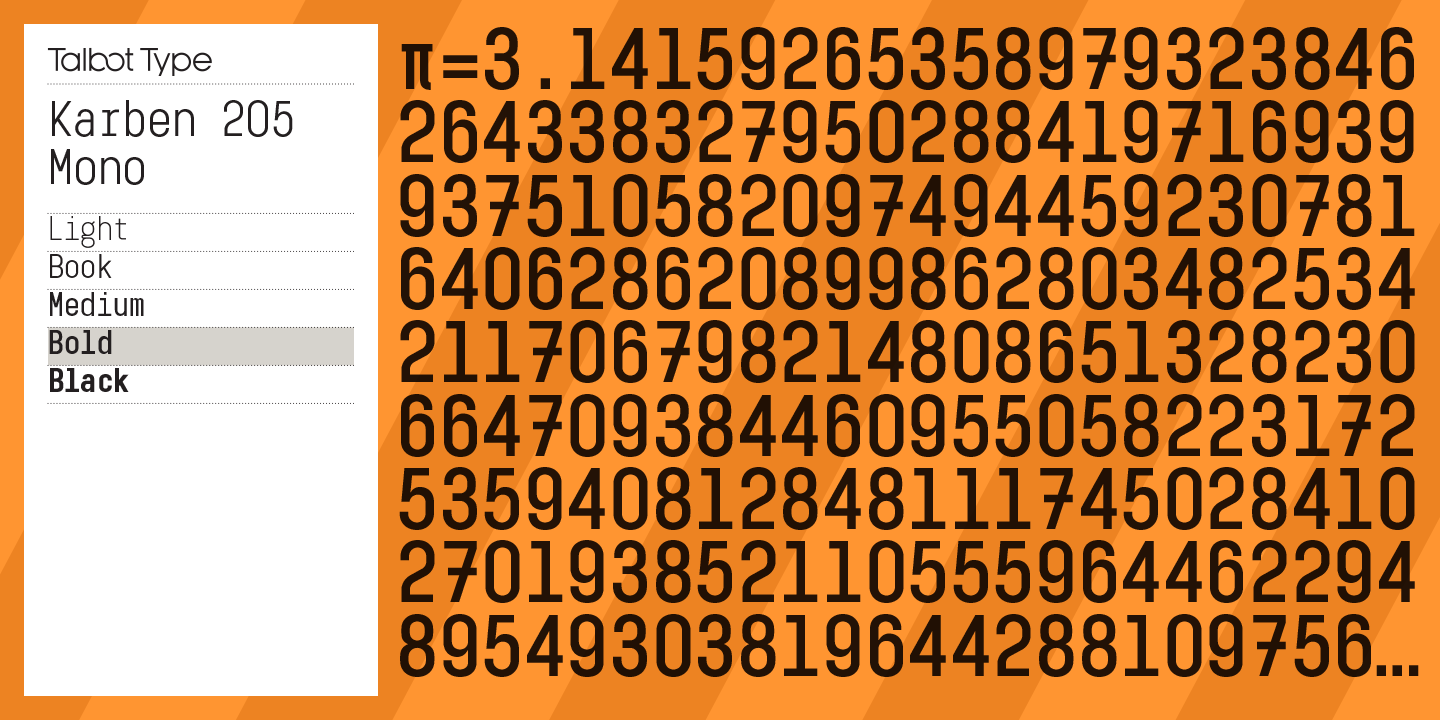
Karben 205 Mono Font is perfect for software development interfaces, coding documentation, technical manuals, terminal applications, programming tutorials, cybersecurity branding, digital forensics reports, computer science textbooks, hacker-themed designs, and retro computing merchandise.
What makes Karben 205 Mono Font so exciting is its precision-engineered monospace design that perfectly balances technical functionality with modern aesthetic appeal. This sophisticated monospace typeface features uniform character spacing, optimized readability for code, and clean geometric forms that create an immediate sense of technical expertise and digital professionalism, making it the ultimate choice for developers, programmers, and tech brands that demand both performance and style.
The Karben 205 Mono Font family includes light, regular, medium, and bold weights, along with extended character sets, programming symbols, mathematical operators, and technical notation support. Each style maintains the font's signature monospace precision while providing developers with comprehensive options for creating clear, professional code documentation and technical communications.
Whether you're designing for software companies or educational technology platforms, Karben 205 Mono Font Free Download delivers the technical precision needed for optimal code readability and professional presentation. The font's meticulously engineered letterforms ensure perfect character alignment and exceptional legibility in both IDE environments and printed technical documentation.
This professionally crafted typeface excels in both command-line interfaces and modern development environments. The Karben 205 Mono Font maintains its technical excellence whether displayed in terminal windows or comprehensive programming guides, making it essential for anyone in the software development and technology education industry.
Code with confidence using Karben 205 Mono Font and experience typography that speaks fluently in the precise language of programming and technical excellence.